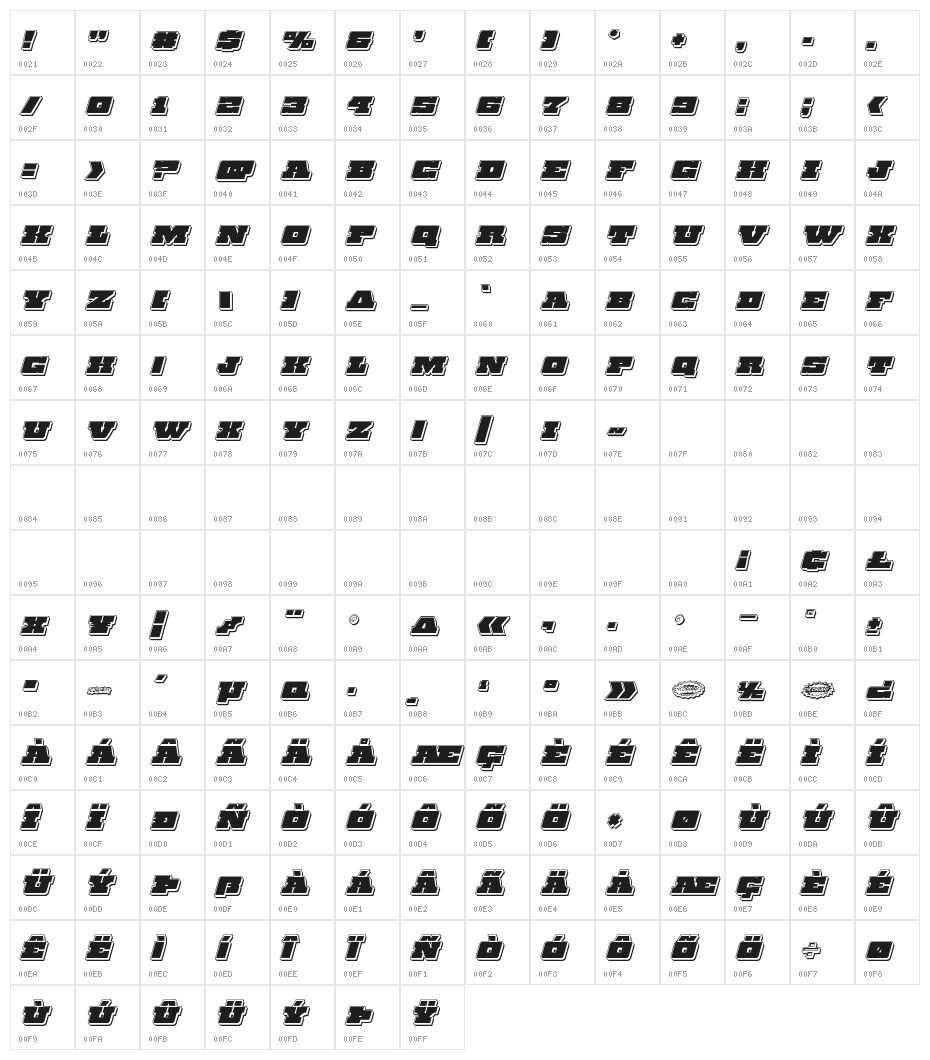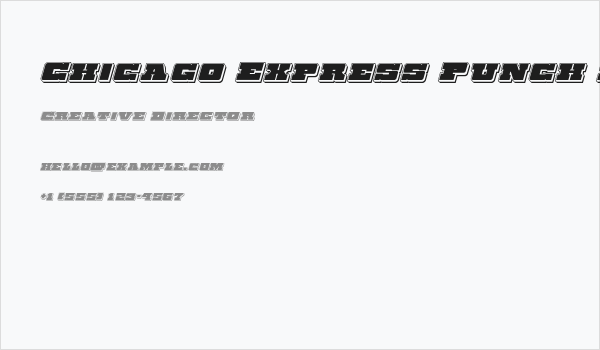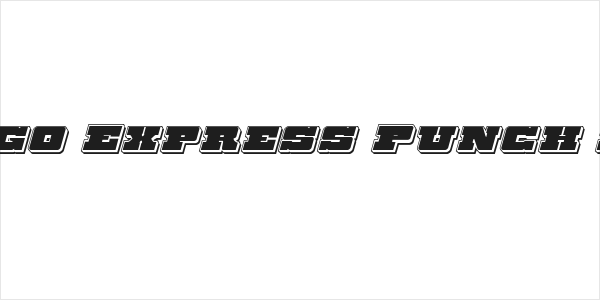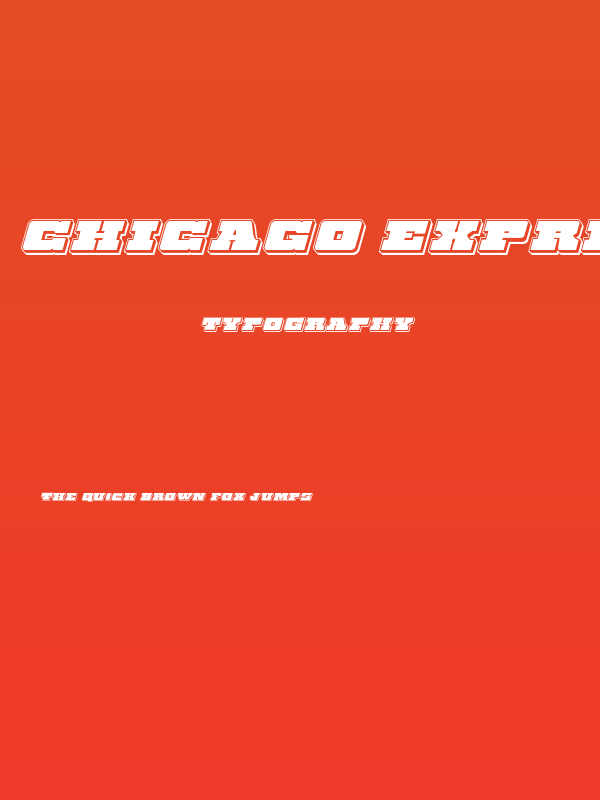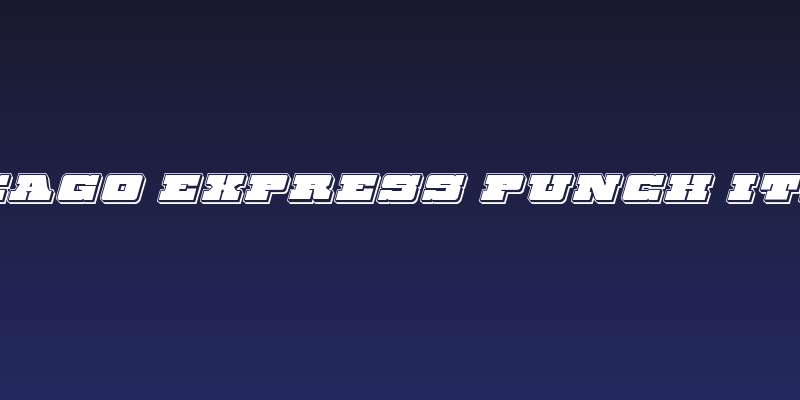
Chicago Express Punch Italic Font
Chicago Express Punch Italic Description
This font features a bold, dynamic style with a strong presence, characterized by thick, blocky letters that convey a sense of power and impact. The italic slant adds a sense of motion and urgency, making it ideal for attention-grabbing headlines. The letters are outlined, providing a three-dimensional effect that enhances their boldness. The font maintains consistent weight throughout, ensuring readability while emphasizing its robust design. The spacing between characters is tight, contributing to its compact and cohesive appearance. This font is perfect for projects that require a strong visual statement.
| Proposed Projects | Ideal for sports branding, posters, event promotions, and dynamic advertising campaigns. |